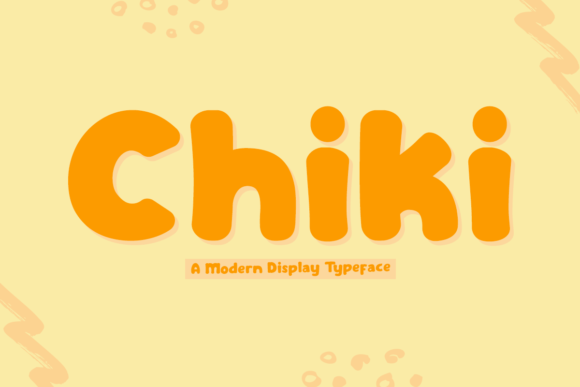
Introducing Chiki Font, the irresistible display font that's perfect for making your creations sparkle with joy!
With its playful and charming personality, Chiki Font transforms words into delightful works of art. It's like having a secret weapon at your fingertips – a versatile font that adds a touch of magic to any project.
Dive into a world of endless possibilities with Chiki Font, where imagination knows no bounds. Whether you're crafting beautiful greeting cards, designing inviting posters, or adding a unique touch to your social media posts, Chiki Font is your perfect companion.
Step into a world where creativity blossoms and ideas take flight. Chiki Font is not just a font; it's a gateway to unleashing your inner artist. Let your imagination soar and create masterpieces that captivate and inspire.
Experience the joy of designing with Chiki Font, the font that adds a dash of whimsy and charm to every project. Download it today and let your creativity shine!